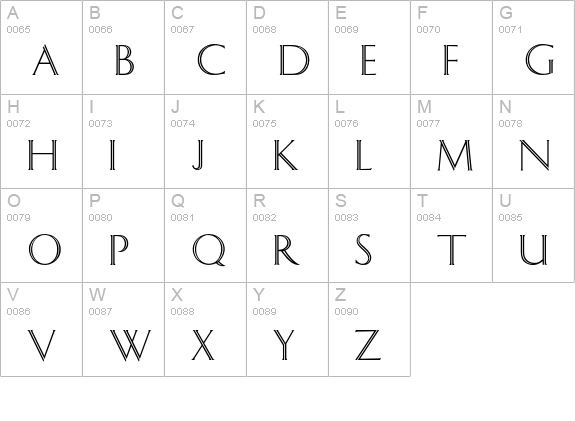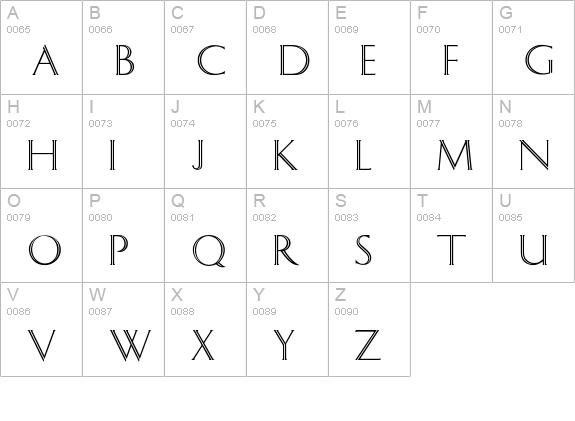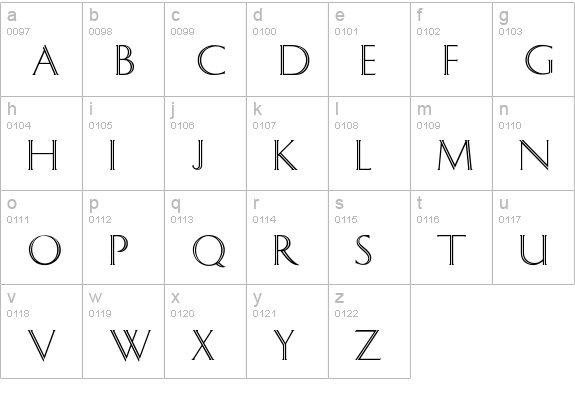
Introducing Ithaka, a stunningly elegant font that is sure to captivate and impress. With its sleek curves and sophisticated design, Ithaka exudes a sense of timeless beauty that is perfect for any project or creative endeavor. But what sets Ithaka apart from other fonts is its unique characteristic of being freely available. Yes, you heard it right - Ithaka is completely free! No need to worry about breaking the bank or spending endless hours searching for the perfect font, because Ithaka is just a few clicks away. Whether you are a professional designer, a student, or simply someone who appreciates the power of a well-designed font, Ithaka is your go-to choice. With its versatility and wide range of styles, it can effortlessly elevate your designs to the next level, adding a touch of elegance and sophistication. And the best part? You don't have to jump through hoops to get your hands on Ithaka. Simply head over to FontsMarket.com, the leading platform for font enthusiasts, and download Ithaka for free. It's as simple as that. So why wait? Unlock your creative potential and embark on a journey of design excellence with Ithaka. Download it now and experience the beauty and power of this exceptional font.